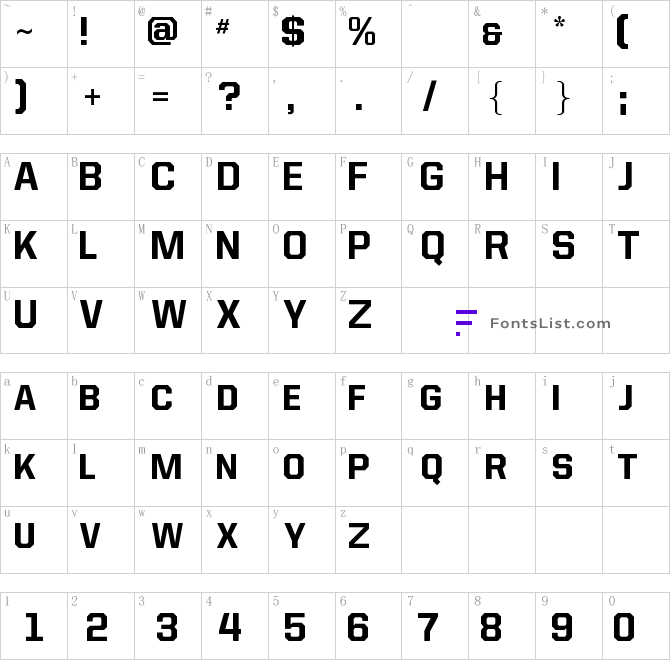
Allstar4.ttf
Allstar4.ttf is a very beautiful artistic font, Allstar4.ttf is widely used in the design and printing of various books and pictures,Allstar4.ttf has a strong visual impact,Allstar4.ttf is a commonly used font in newspapers, magazines and books, and is used in posters, e-commerce Poster design, store design, logo design, font design and other fields.Allstar4.